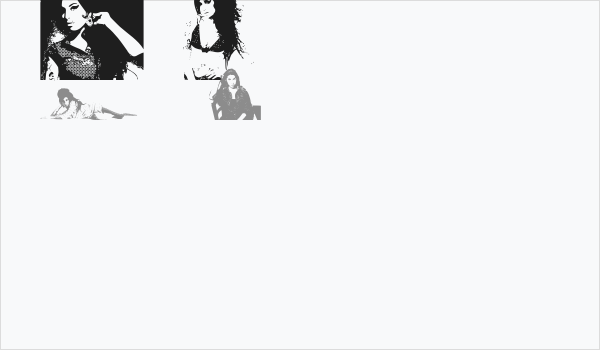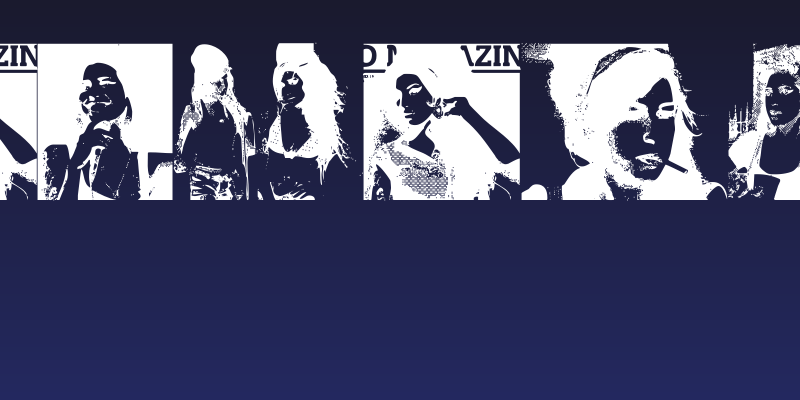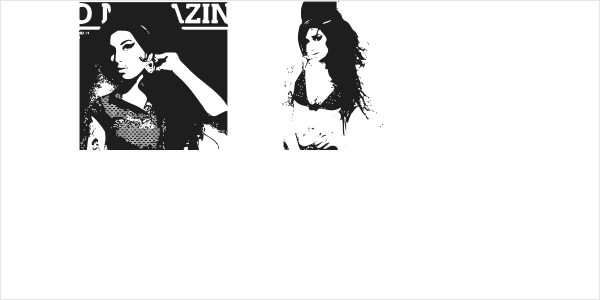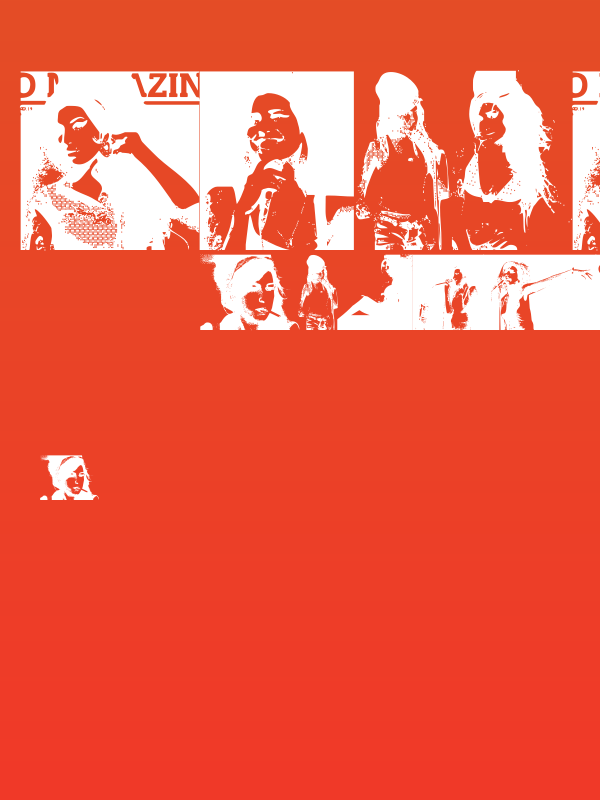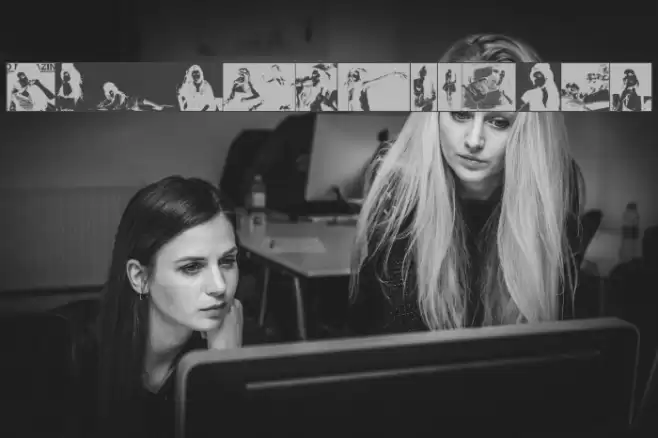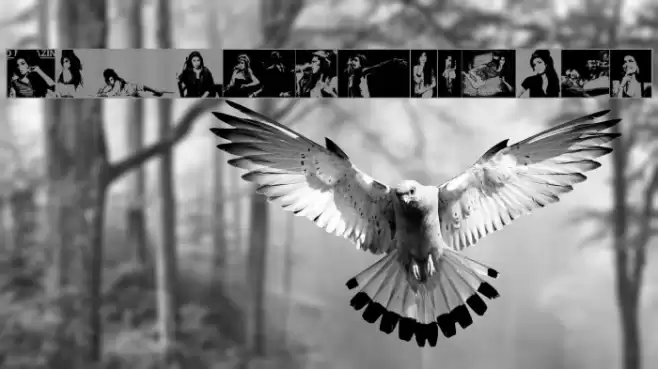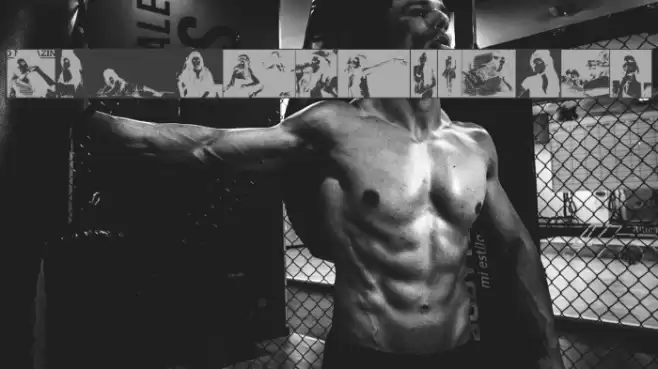
AmyBats 5 Font
AmyBats 5 Description
A highly decorative font composed of black-and-white photographic or illustrated portraits within rectangular frames, each representing a different character. The glyphs are not traditional letterforms but rather unique images, making legibility secondary to visual impact.
| Overall Style | Decorative, Artistic, Thematic |
| Use Case | Logos, Headlines, Posters, Artistic displays |
| Proposed Projects | Posters, album covers, event flyers, artistic projects, themed branding. |